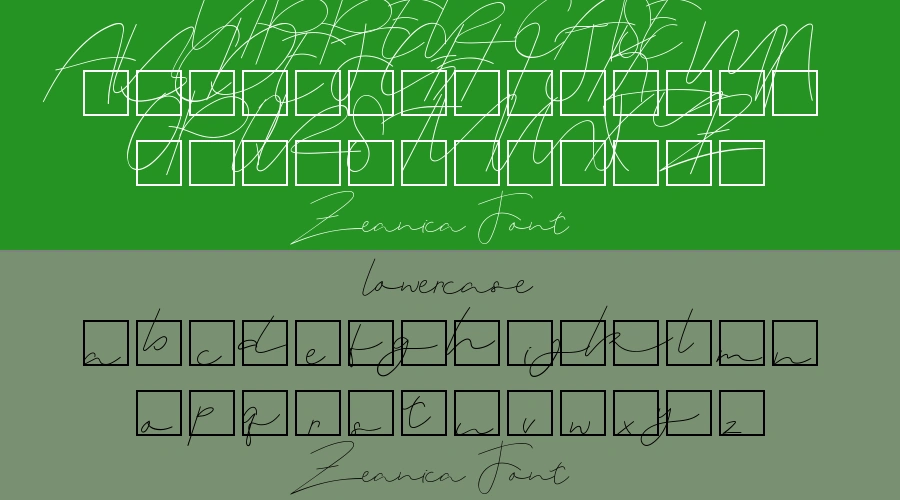
About Zeanica Font
When typographic excellence matters most, Zeanica Font delivers through its thoughtful blend of script connections and excellent legibility. Specially crafted for historical publications, it offers the consistency and professional standards required for sophisticated design work. Every detail serves a purpose.
The character set showcases thoughtful details like curved brackets alongside functional word-end alternates. This proves especially valuable in hero imagery, where scalability directly influences results. Particular attention was paid to letterfit and research value during development.